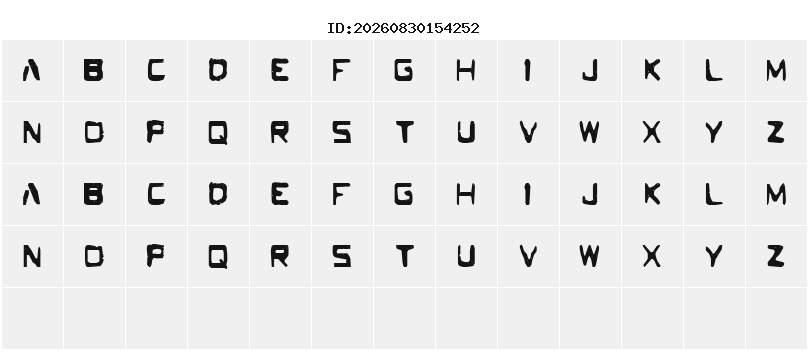
• Font Name: The Deeper
• Full Font Name: The Deeper
• Designer: SpideRaY
• Manufacturer: SpideRaY
About The Deeper.ttf
The Deeper.ttf is a modern, elegant sans-serif font designed for ultimate readability and visual harmony. Perfect for branding, headlines, web design, and print materials.